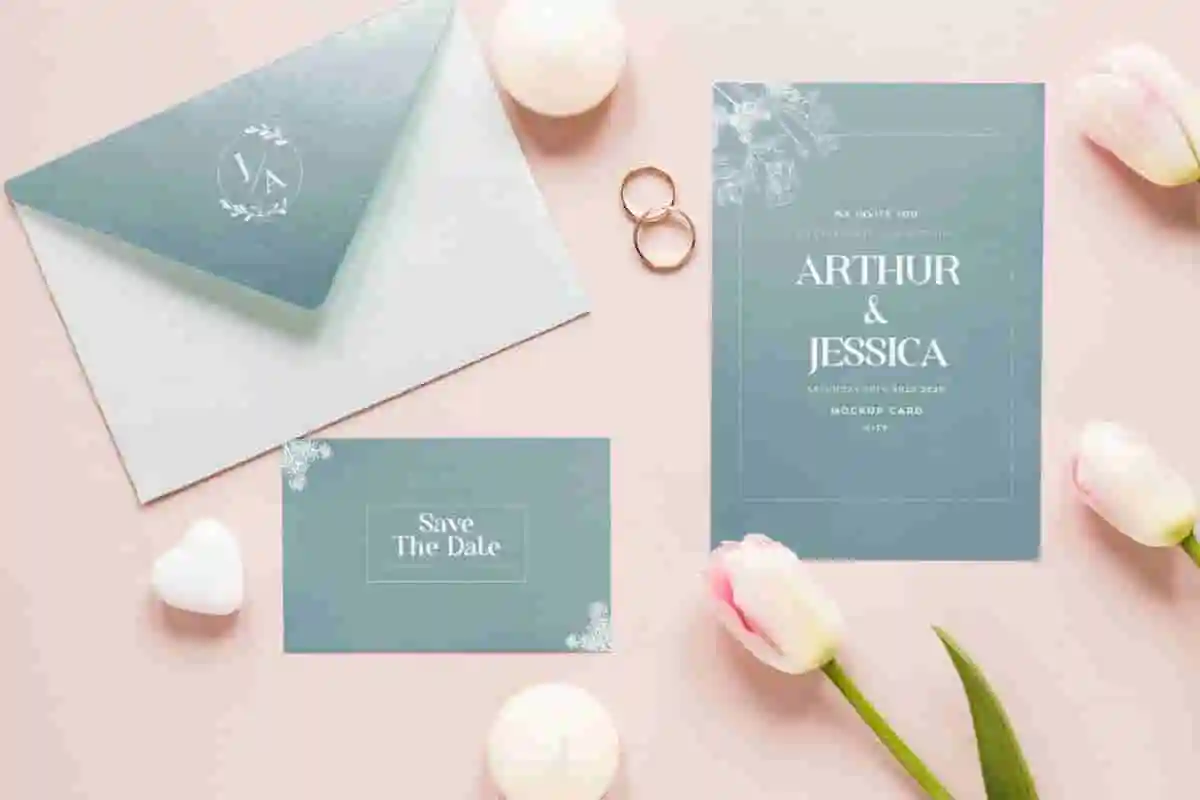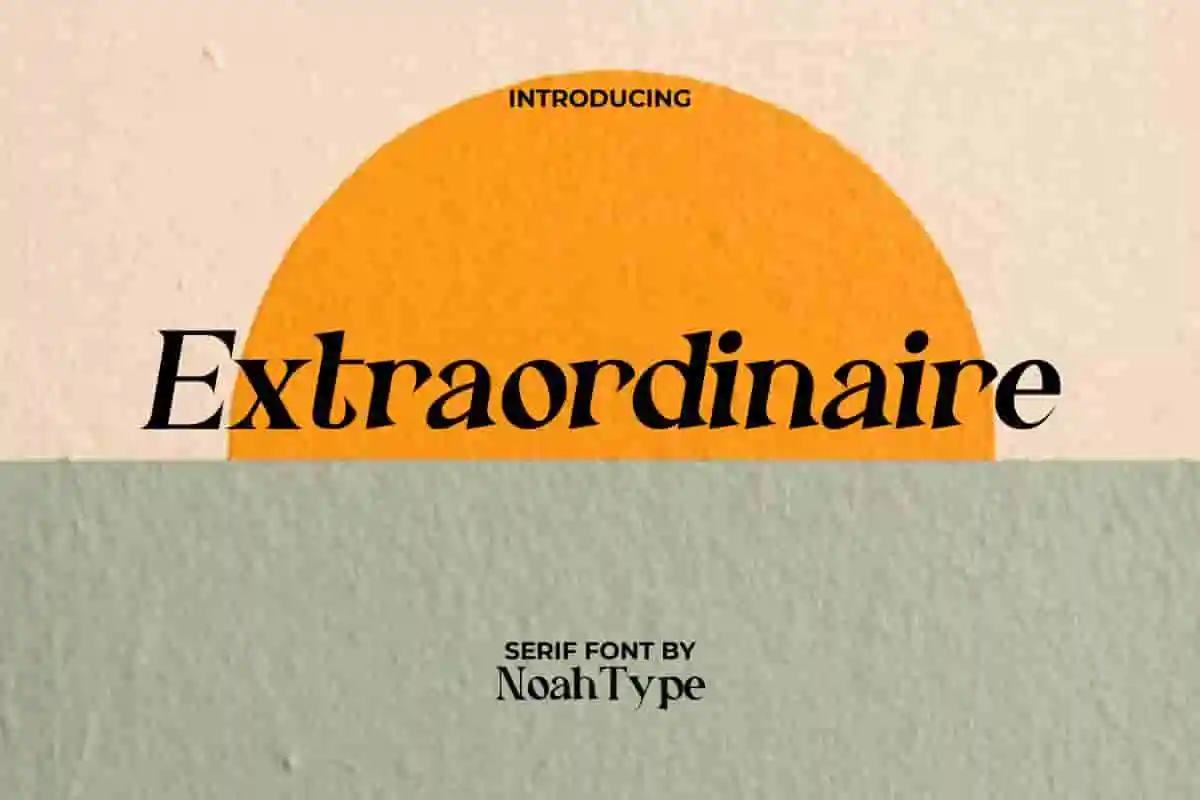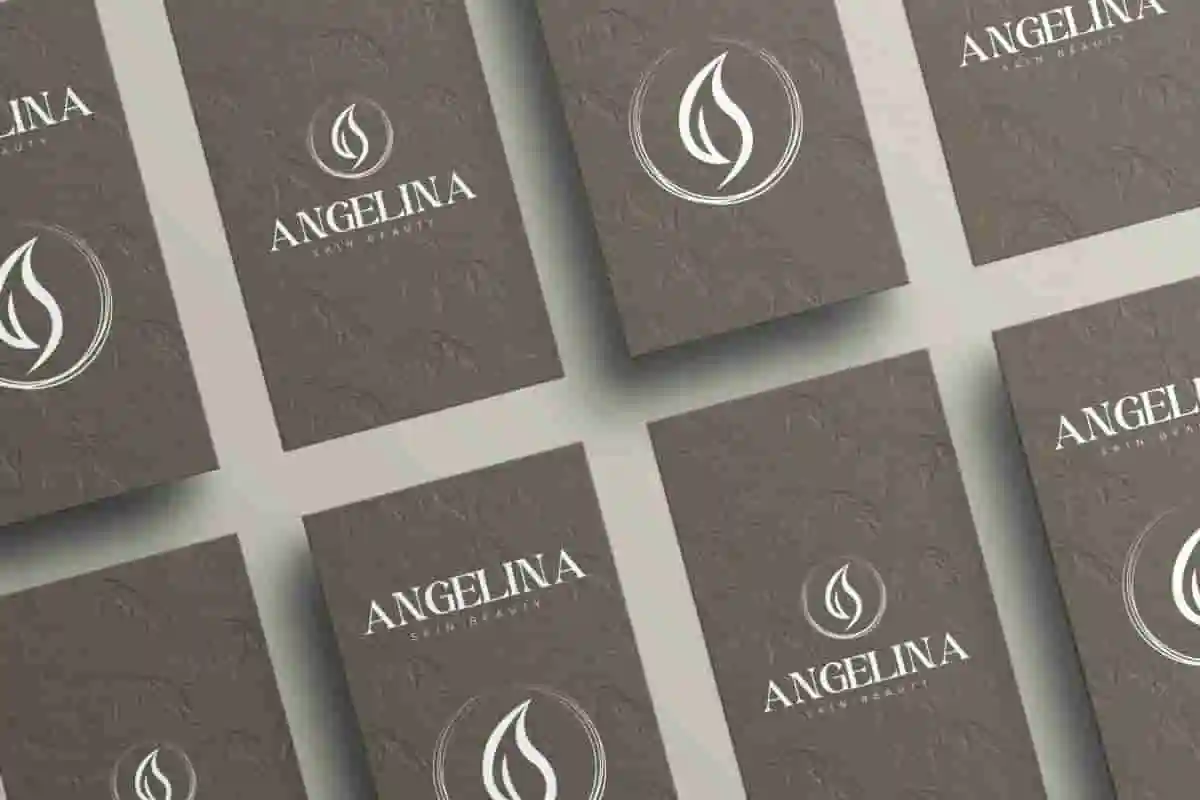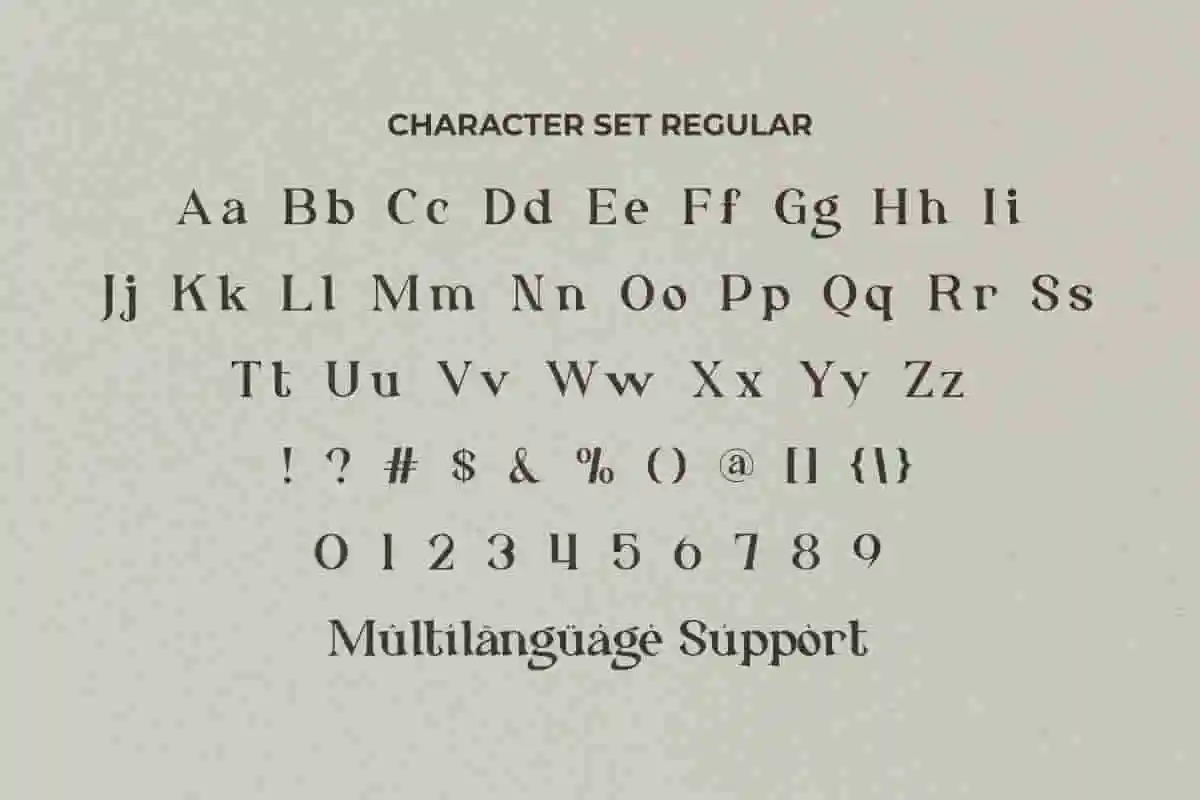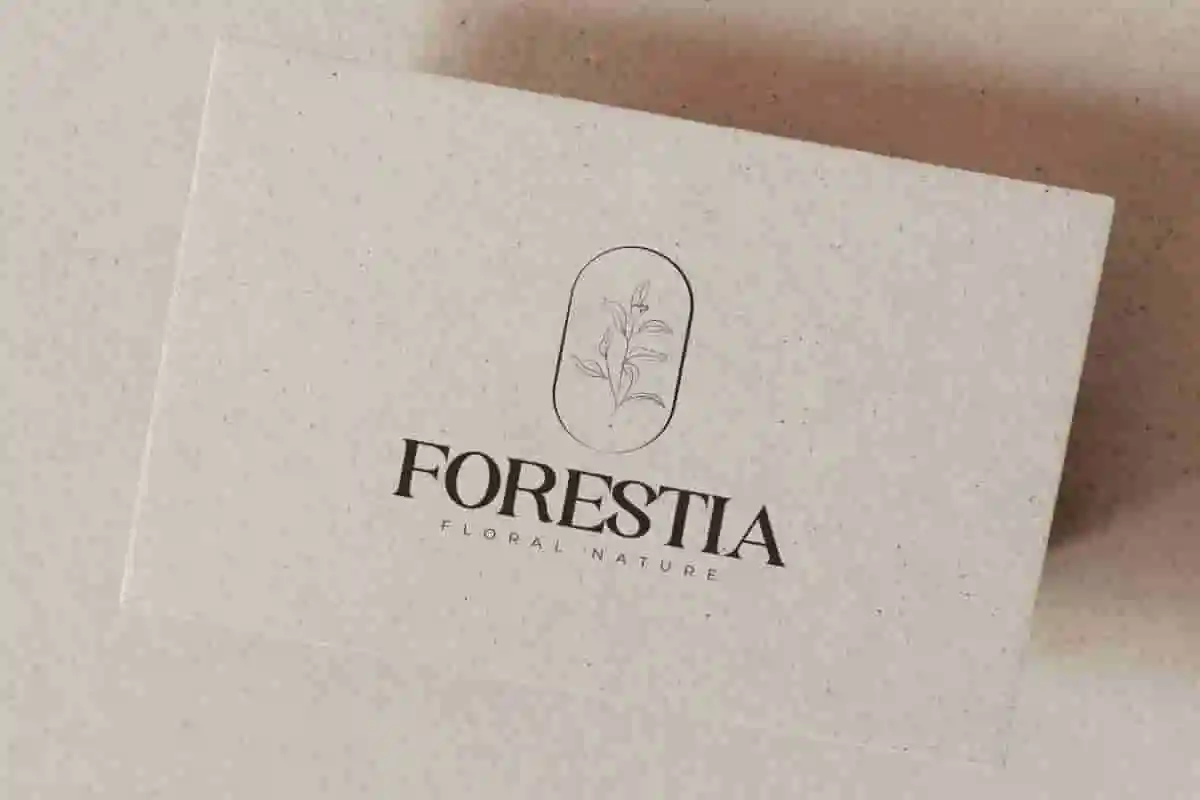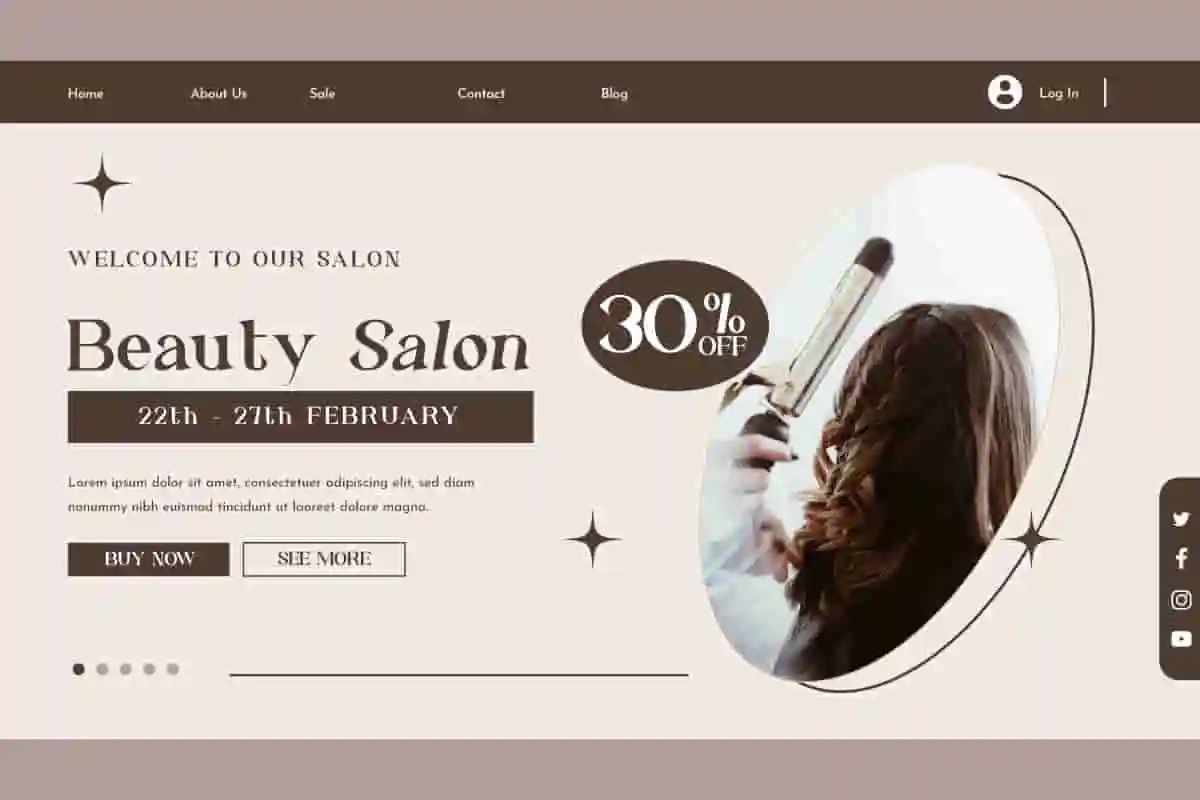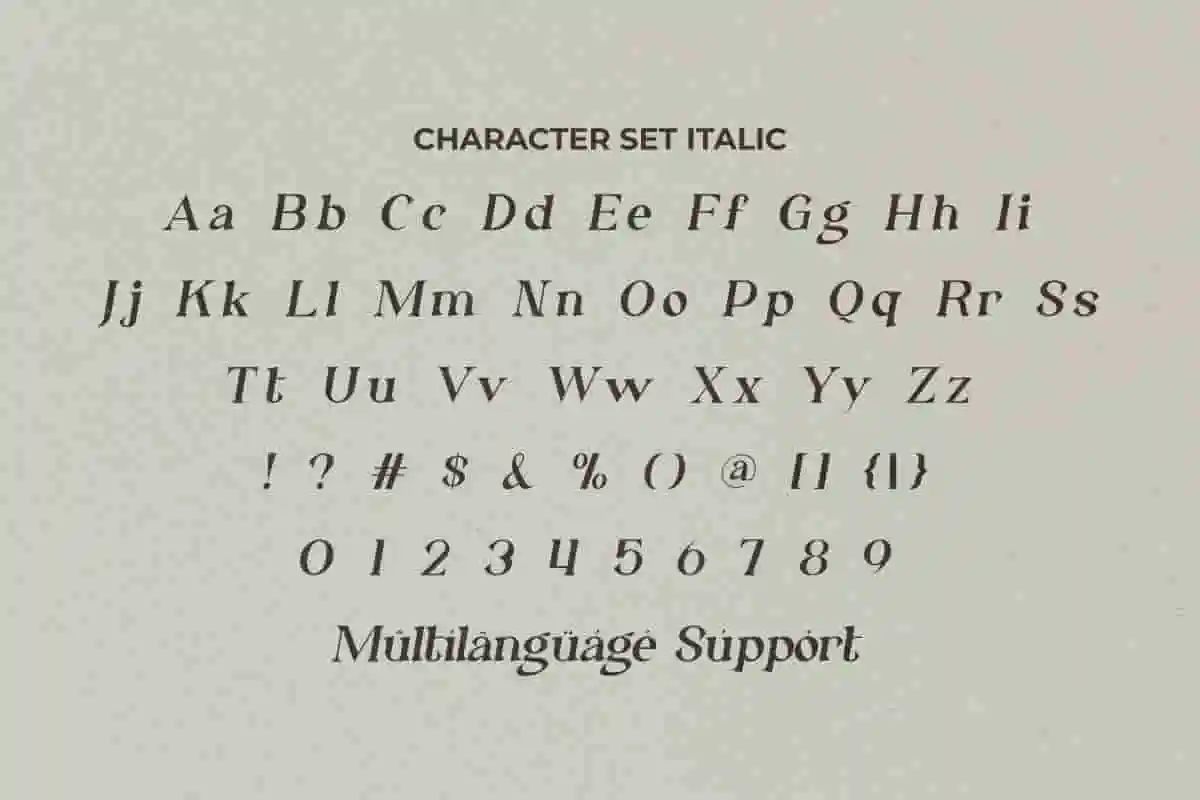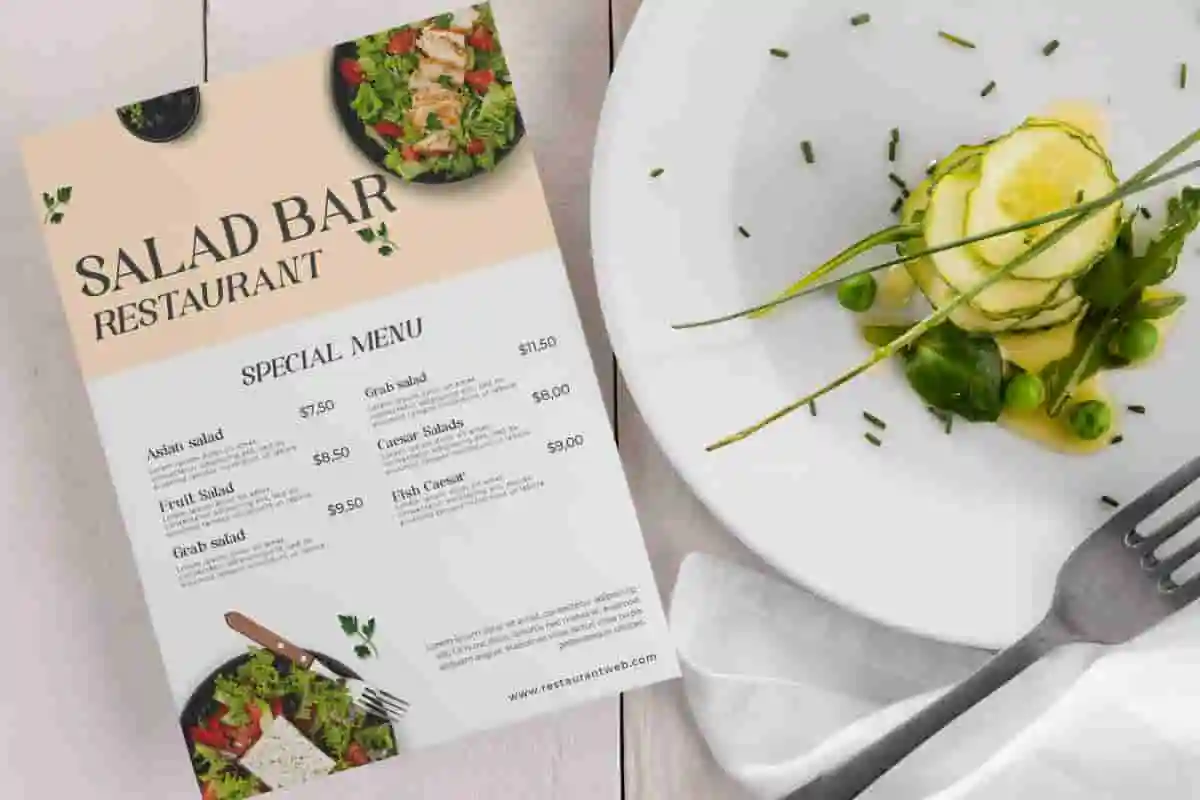
Extraordinaire Font is a stylish modern serif font with two styles, Regular and Italic, designed by NoahType. This font has elegant lines that can be used in any type of project, including casual and stylish. It will be the best choice for many industries, such as artist, café, boutique, cosmetic, event tenant, fashion, florist, handicrafts, photography, printing, publishing, real estate, restaurant, spa salon, and more!
Extraordinaire Font include full set of Uppercase and Lowercase Basic Characters, Numerals and Punctuation. Use this font to support your creativity in various designs, such as billboard, brochure, business card, invitation, magazine catalog, menu, quote, stationery, website, etc.
Discover the charm and sophistication of Extraordinaire Modern Font, a stunning typeface crafted for designers, creatives, and brands who demand style and precision. This modern font blends clean lines with subtle elegance, making it the perfect choice for both minimal and luxurious designs. Whether you’re creating branding materials, social media graphics, wedding invitations, or editorial layouts, Extraordinaire Modern Font ensures every word you write makes a lasting impression.